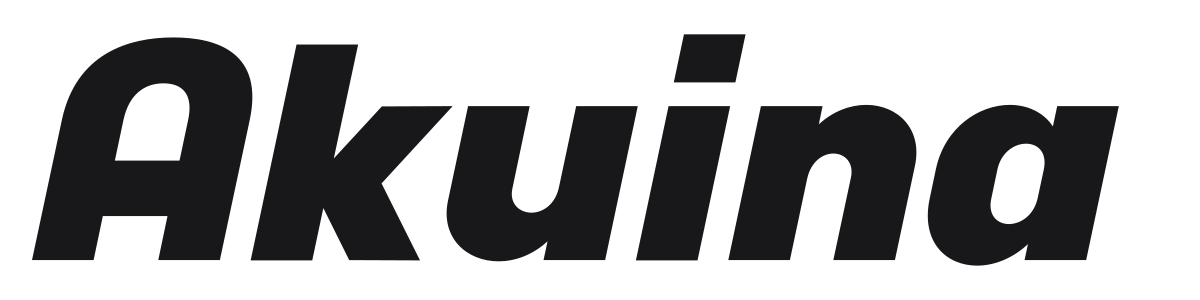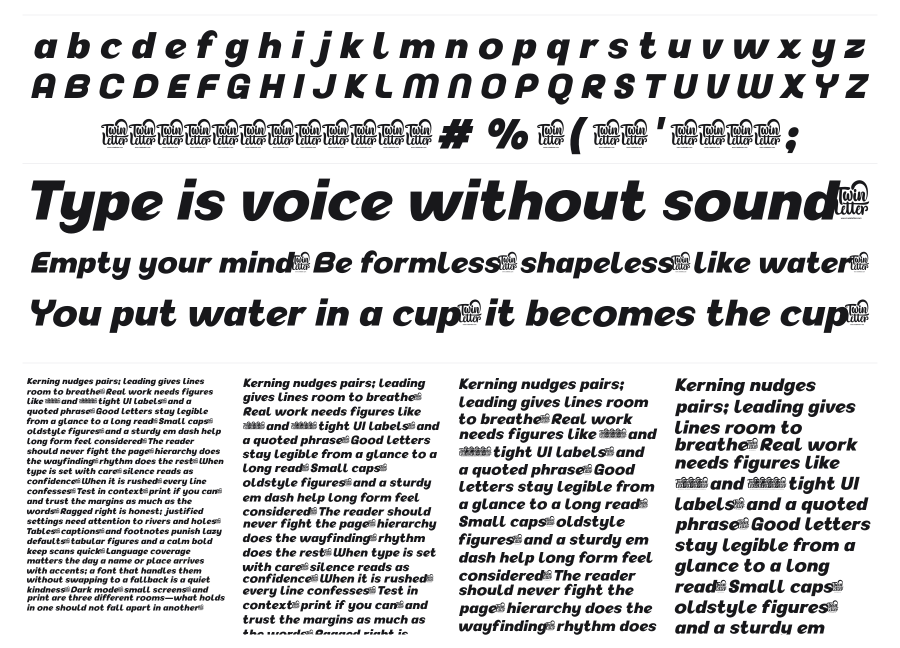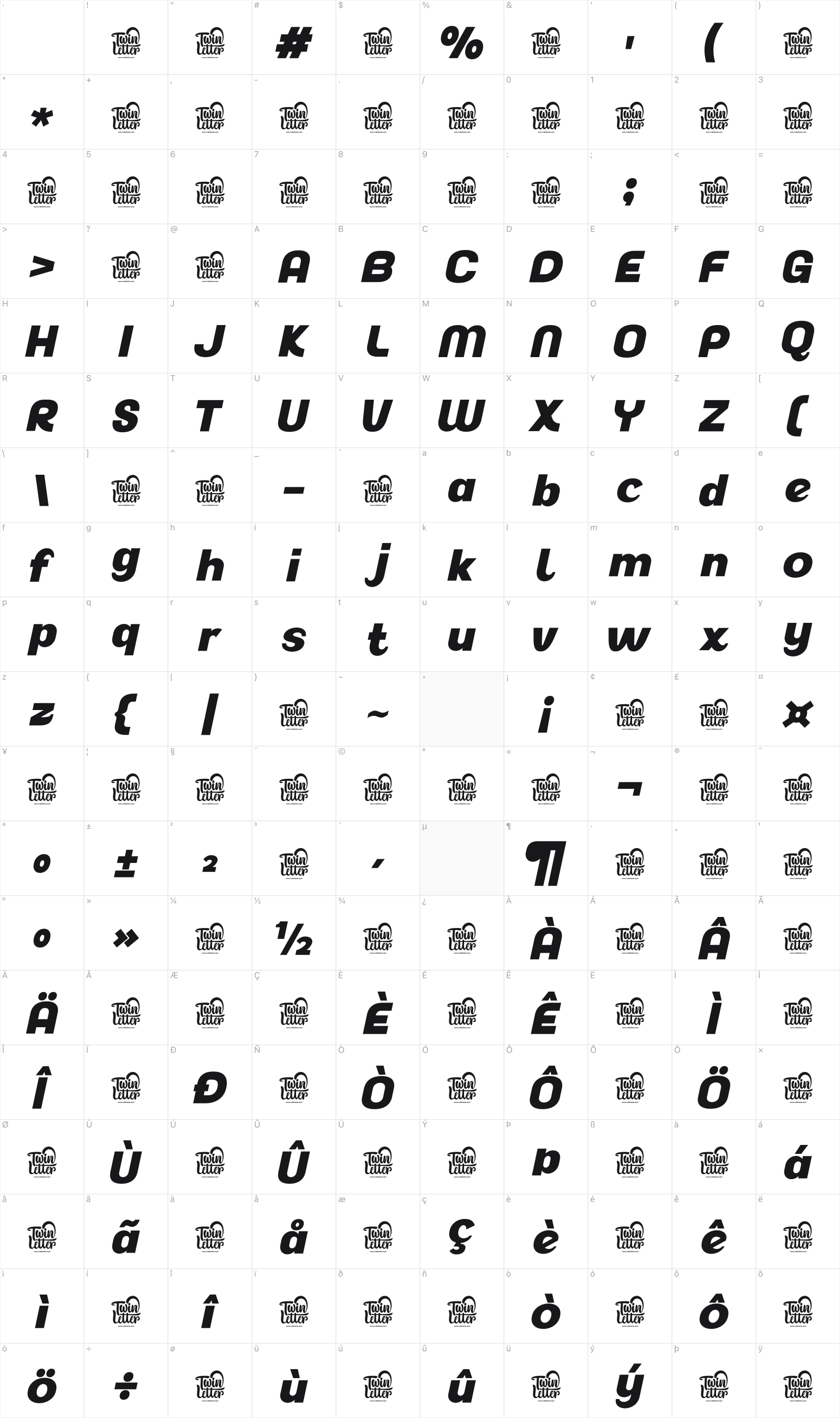
Akuina
Akuina is a heavy geometric sans-serif with broad, rounded characters and a bold italic presence. The thick strokes and blunt terminals keep it approachable rather than severe, giving it a dynamic energy suited to branding and editorial headlines. It reads loudly and clearly at display sizes.